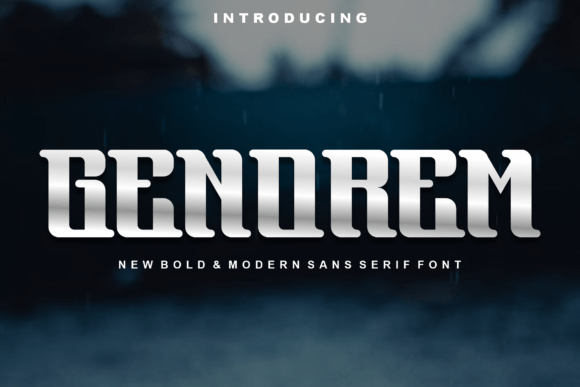
Genorem: A Modern Display Font for Creative Excellence
Genorem is a display font that stands out in the crowded world of typography. Designed with a balance of elegance and modernity, it offers a versatile solution for a wide range of creative projects. Whether you're working on branding, editorial design, or digital content, Genorem has the potential to elevate your work. Its clean lines and distinctive character make it a strong contender for those seeking a font that combines style with functionality.
What Makes Genorem Unique?
At first glance, Genorem appears as a straightforward sans-serif typeface, but its design contains subtle details that set it apart. The font’s structure is both refined and approachable, making it suitable for both high-impact headlines and more subdued body text. Unlike many fonts that lean too heavily into one aesthetic, Genorem maintains a neutral yet expressive tone that can adapt to various design contexts.
One of the standout features of Genorem is its attention to detail. Each glyph is crafted with precision, ensuring consistency across different weights and styles. This level of craftsmanship contributes to its overall reliability, making it a dependable choice for professionals who need consistent results across multiple platforms and mediums.
Key Characteristics and Design Philosophy
Genorem was developed with a clear purpose in mind: to serve as a go-to font for designers who want a modern, readable, and visually appealing typeface. Its design philosophy emphasizes clarity without sacrificing personality. The font’s letterforms are well-proportioned, with a slightly condensed structure that allows for efficient use of space—ideal for layouts where typography plays a central role.
The font also includes a range of weights, from light to bold, which gives designers flexibility in their typographic hierarchy. This range ensures that Genorem can be used effectively in both large-scale displays and smaller, more detailed compositions. Additionally, its open counters and generous x-height contribute to its legibility, even at smaller sizes.
Practical Applications and Real-World Use
Genorem shines in situations where visual impact is important. It works exceptionally well for headlines, logos, and promotional materials, where its clean and modern look can capture attention without overwhelming the viewer. For example, in a marketing campaign, Genorem could be used to create a strong, memorable brand identity that aligns with contemporary design trends.
In editorial contexts, such as magazines or online publications, Genorem can be used for subheadings or pull quotes. Its readability at medium sizes makes it a good choice for supporting text, while its distinctiveness ensures it doesn’t get lost among other typefaces. When paired with complementary fonts, Genorem can add a touch of sophistication without disrupting the overall design flow.
Quality, Usability, and Flexibility
Usability is another area where Genorem excels. Its balanced weight distribution and consistent spacing make it easy to read in both print and digital formats. This versatility means that it can be used in a variety of settings, from website headers to packaging design. For designers looking for a font that can handle multiple tasks, Genorem offers a solid foundation.
Strengths and Limitations
One of Genorem’s greatest strengths is its ability to blend into different design environments while still maintaining its own identity. It is neither too bold nor too subtle, which makes it adaptable to a broad range of projects. However, this neutrality can also be a limitation in certain contexts. For instance, if a designer is looking for a font with a strong, distinctive voice, Genorem may not provide the same level of individuality as more experimental typefaces.
Another consideration is its suitability for long-form text. While Genorem is readable at smaller sizes, it may not be the best choice for extended blocks of body text. In such cases, pairing it with a more traditional serif or sans-serif font could enhance readability and visual balance.
Who Benefits Most from Genorem?
Genorem is particularly well-suited for professionals in the fields of graphic design, branding, and digital marketing. Its modern aesthetic aligns with current design trends, making it a valuable asset for creatives looking to stay relevant. Entrepreneurs and small business owners who are building their brand identity can also benefit from using Genorem in logos, websites, and promotional materials.